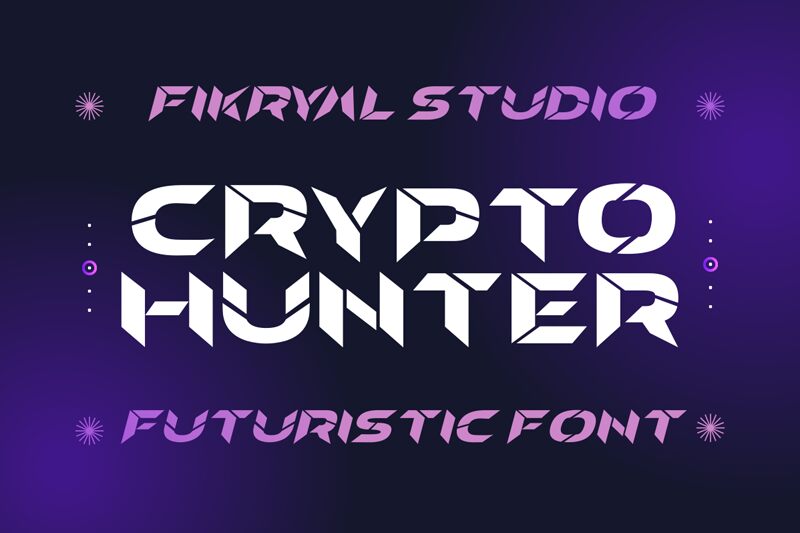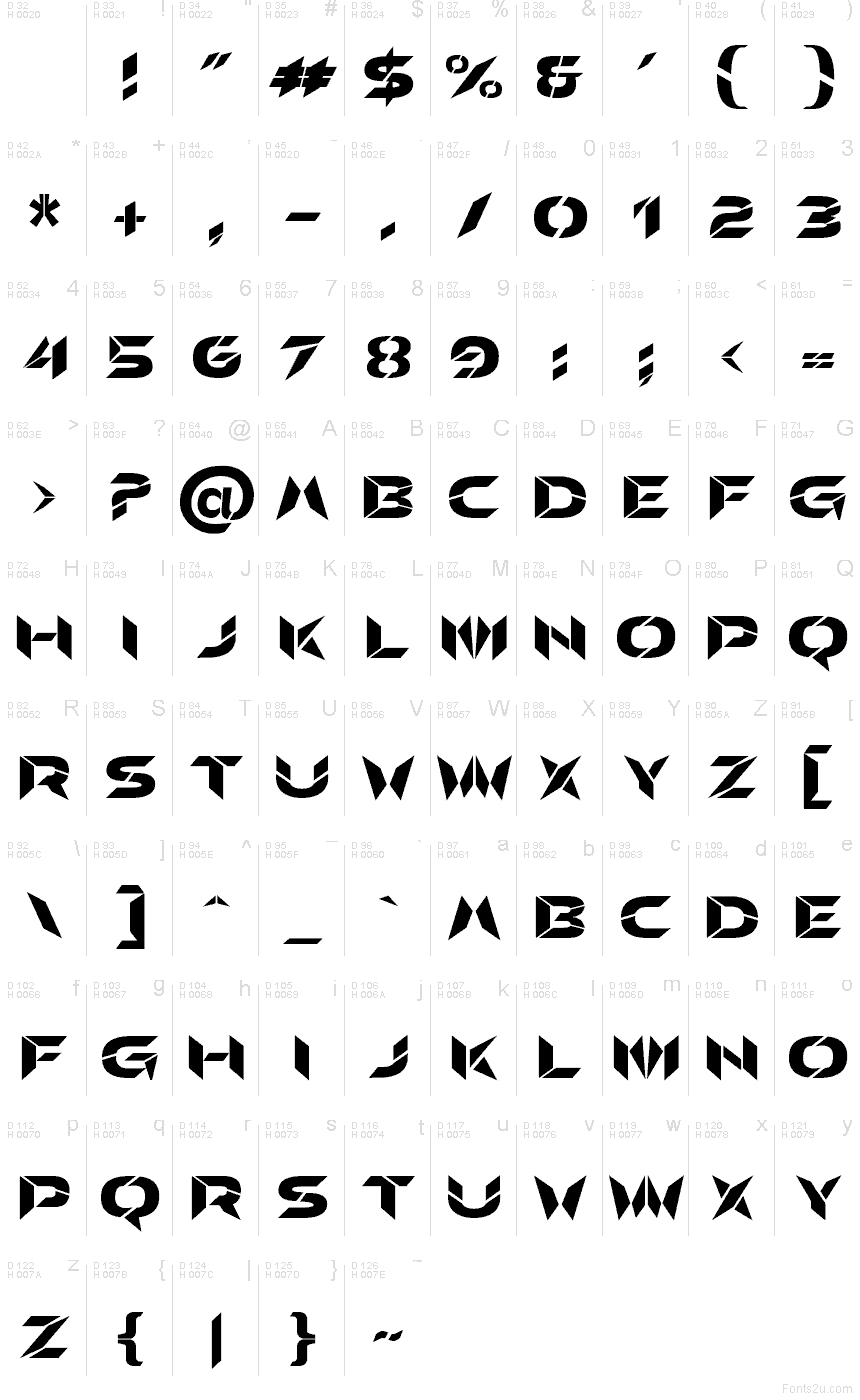
Crypto Hunter font by Fikryal studio is a free futuristic display typeface that looks carved from sharp, metallic shards. Its angular cuts, tight spacing, and glitchy geometric rhythm give every word a hacked-terminal, sci‑fi energy, like a warning flashing across a starship console. The bold, black forms feel heavy and aggressive, yet still readable at a glance, making it stand out instantly on dark or neon backgrounds.
Using Crypto Hunter, this free font shines on game titles, esports logos, crypto or tech branding, YouTube thumbnails, posters, and futuristic event graphics. The sliced shapes and consistent width make it strong in large headlines and logotypes, where every edge can be appreciated. Pair it with a clean, light sans serif for body copy to keep layouts balanced, and let Crypto Hunter handle the loud, cinematic moments.